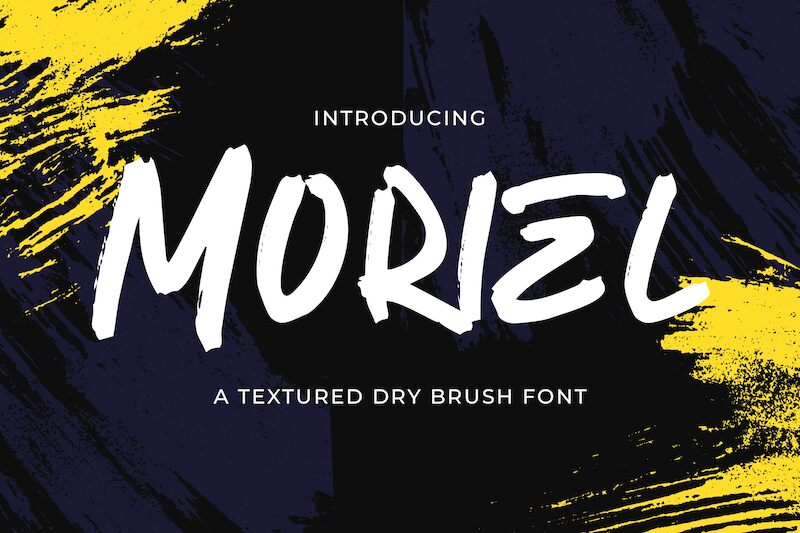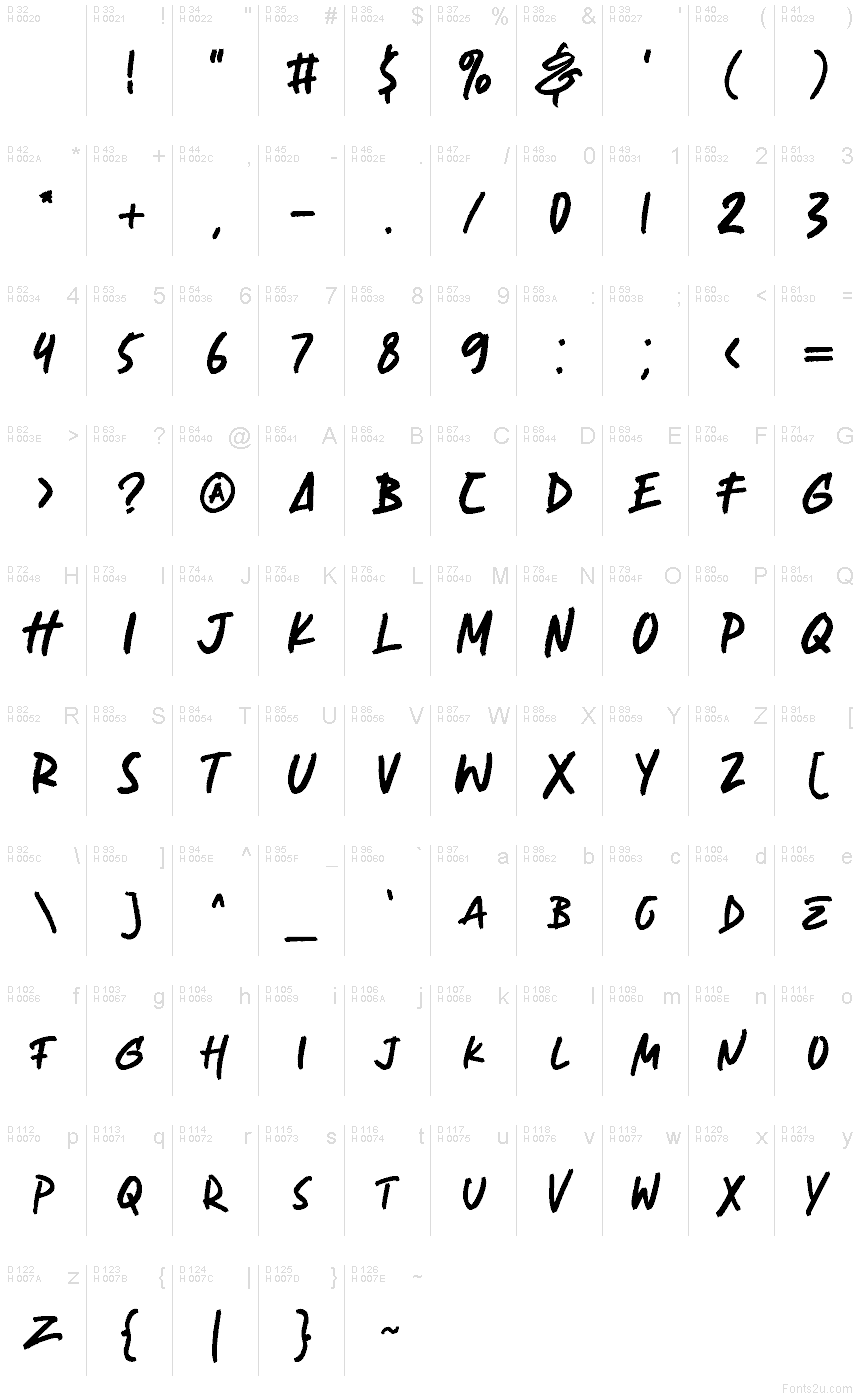
Moriel font by StringLabs Creative Studio is a free brush display font built on bold, slashing strokes and gritty, dry-brush texture. Each letter looks freshly painted-edges fray, ink pools, and the slightly forward lean gives it real motion, like a quick swipe across a poster. It’s loud without losing legibility, delivering the punch of hand-scrawled signage with enough rhythm to hold a headline.
Using Moriel, you can energize event flyers, album covers, streetwear graphics, YouTube thumbnails, food and beverage packaging, and bold social posts. This free font thrives at large sizes where the paint ridges can breathe; pair it with a clean condensed sans for body copy to keep the message sharp.